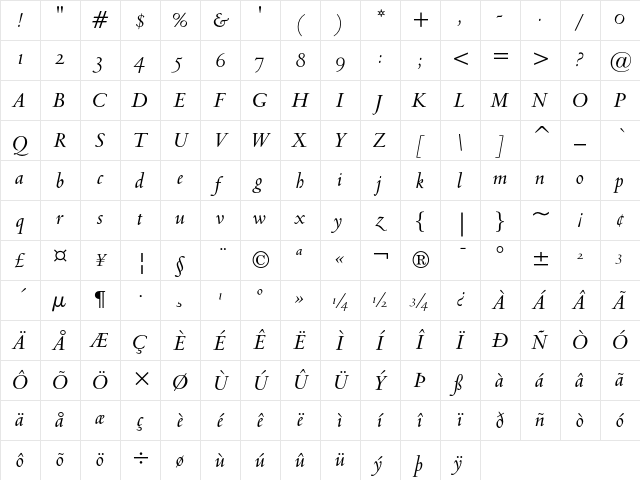
Venetian 301 Demi Italic
Style: Demi Italic
Design Context for Venetian 301
Venetian 301 is a composed and adaptable typeface that performs quietly and consistently across a wide range of design contexts. The slanted form adds forward momentum and visual energy.
Pro Tip: Use Venetian 301 for emphasis, pull quotes, and subheadings where its slanted energy can add rhythm to the layout.